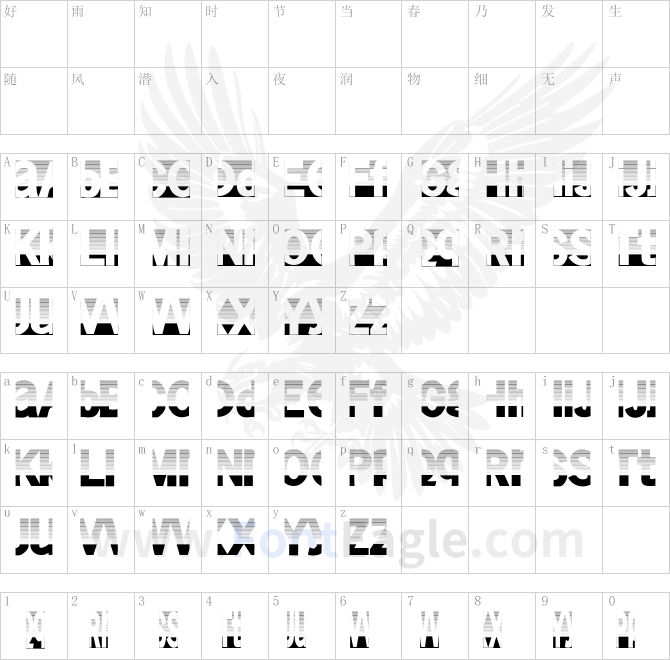
- Font name:FriendlyFireDust
FriendlyFireDust is a great font, widely used in graphic design, single-page menu design, poster design and other fields, and is deeply loved by designers.FriendlyFireDust download.